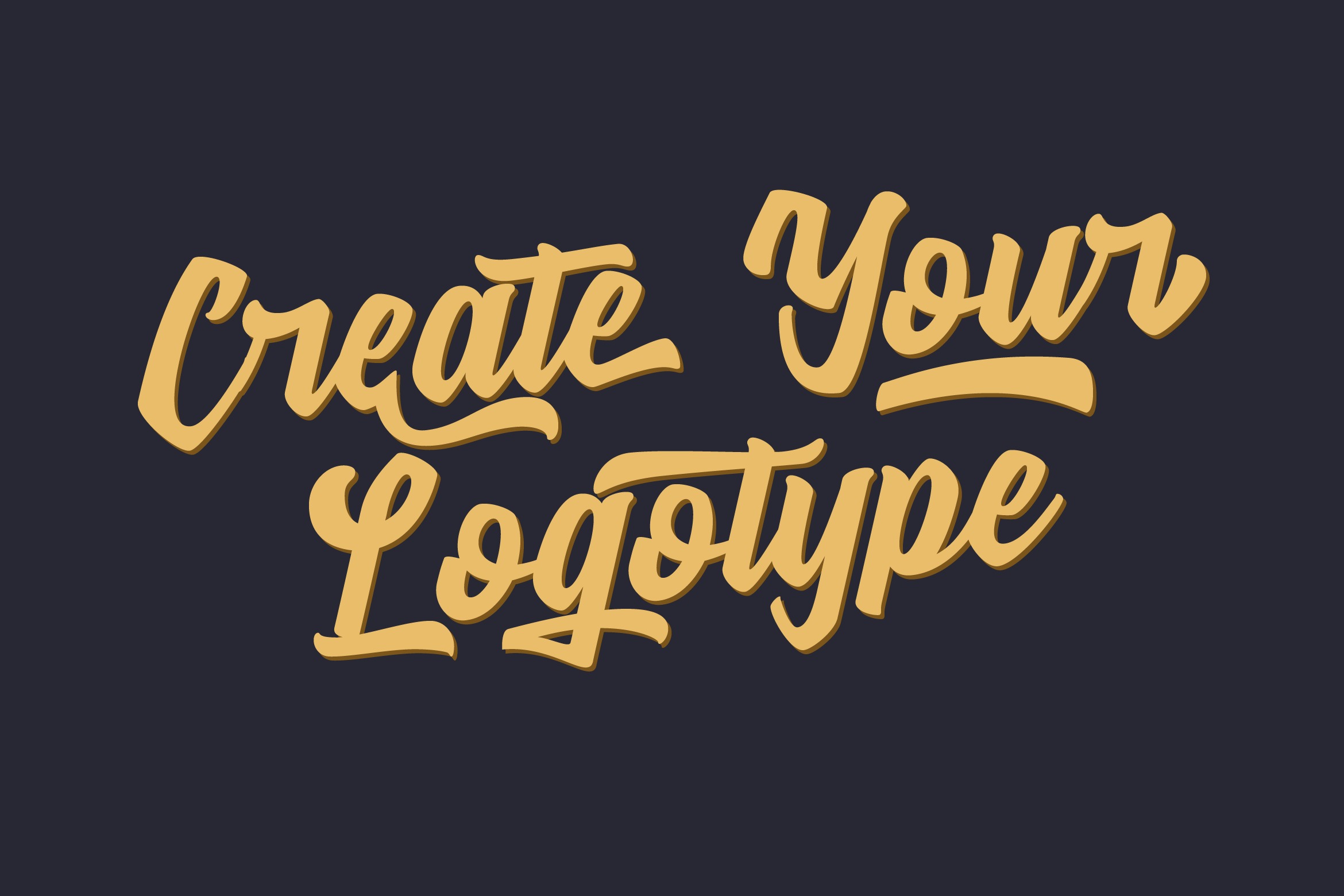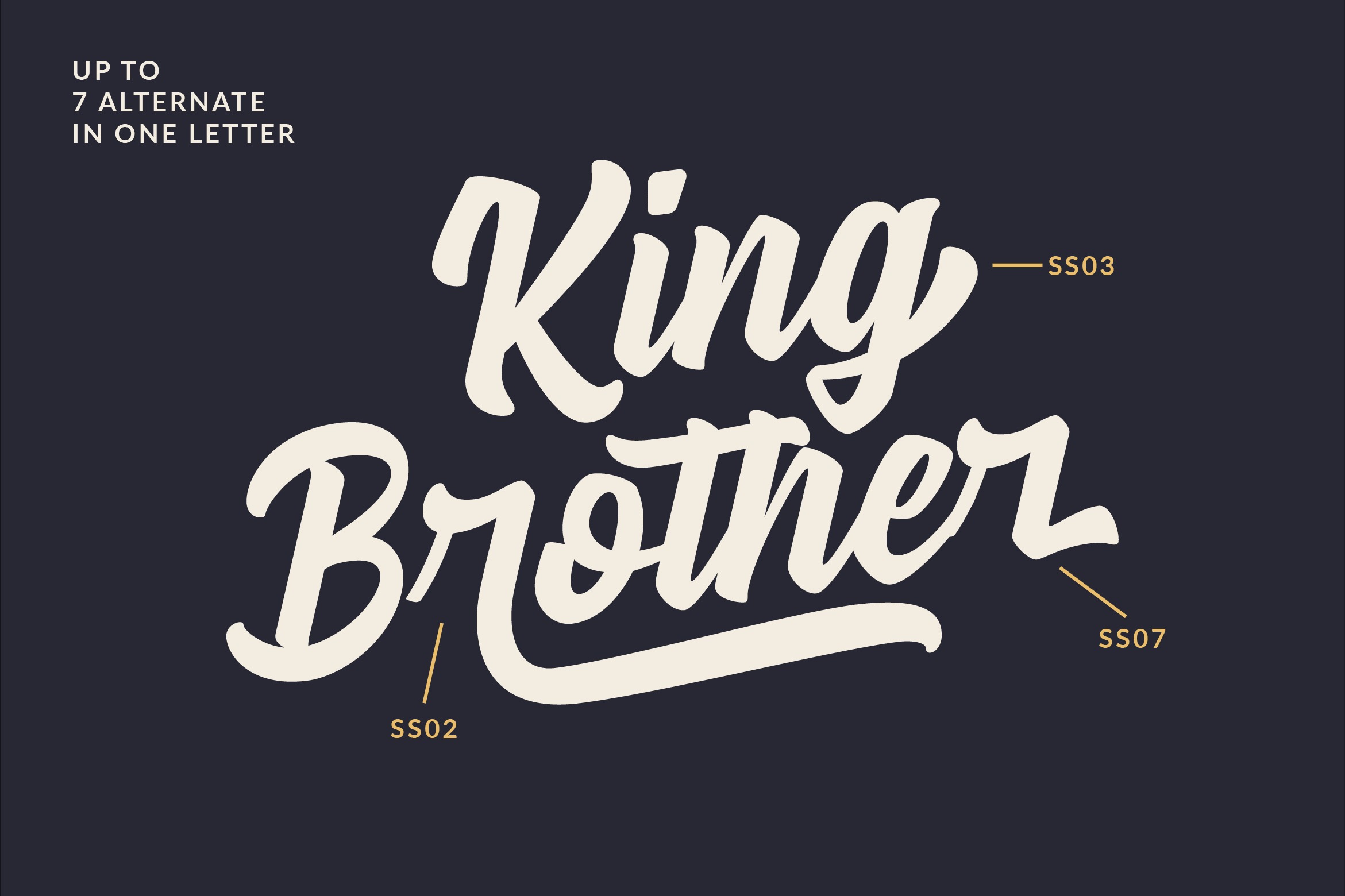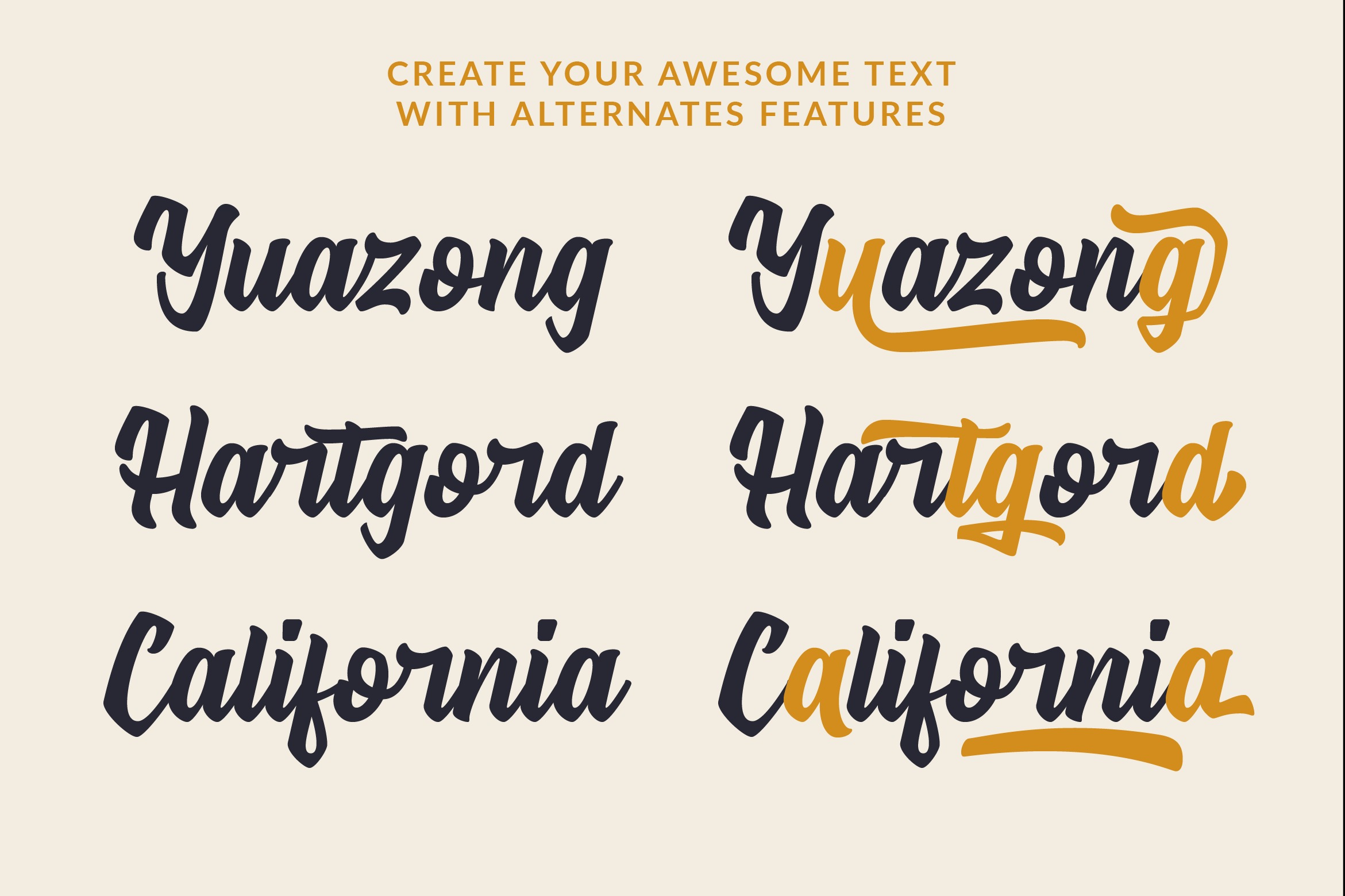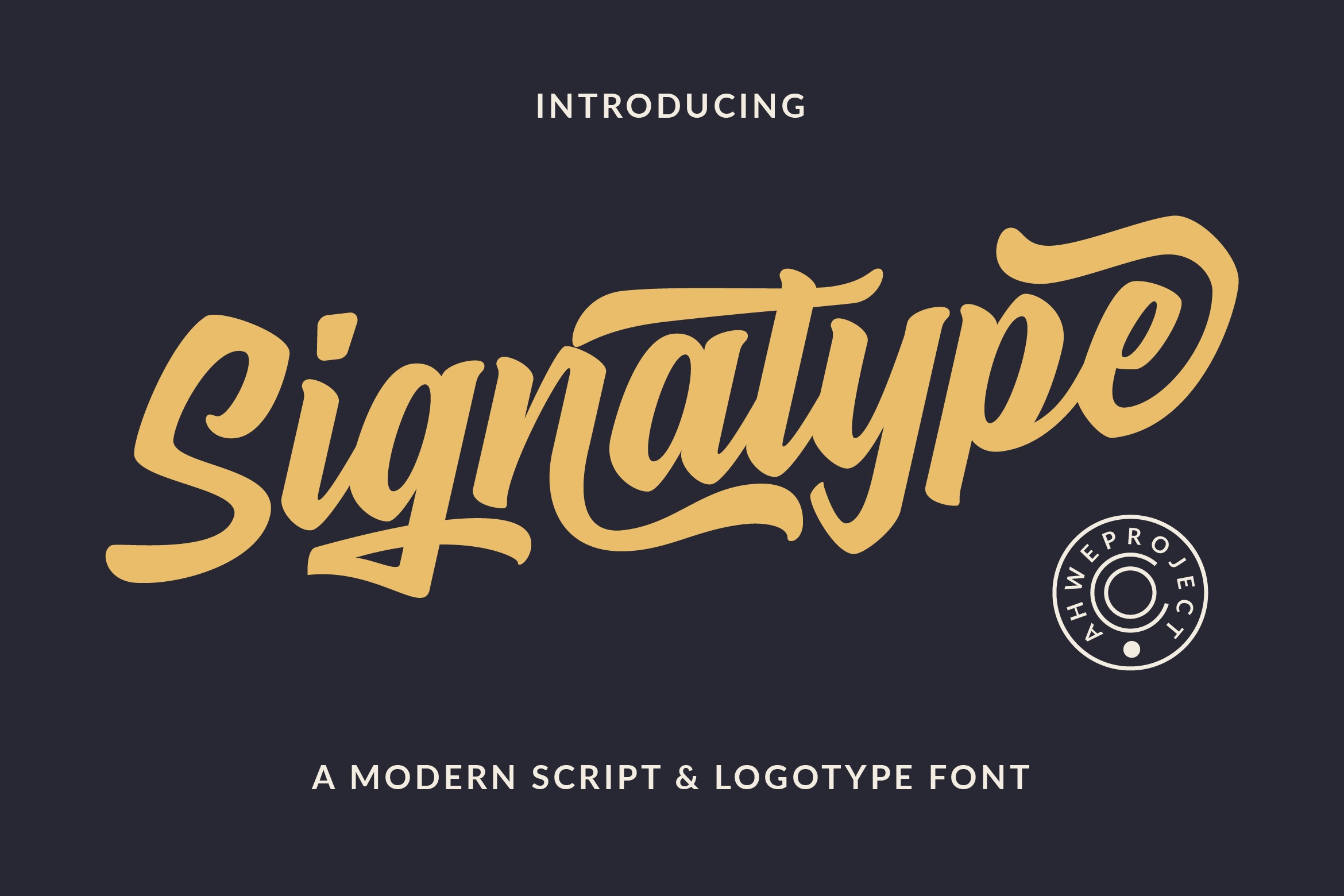
Signatype Bold Script Font
This is pairing authentic font collection. Thats already match up and to be use together. Afferiant support ligatures and alternates character to make everything awesome design. It has beautiful and well balanced characters and as a result, it matches a wide pool of designs. Add it to your most creative ideas and notice how it makes them come alive!